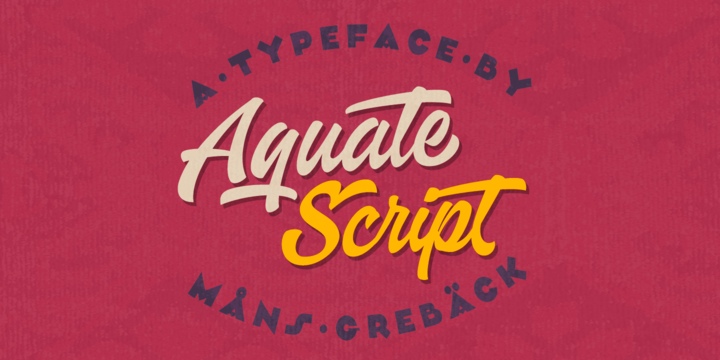
Aquate Script Font
Aquate Script Font is perfect for wedding invitations, luxury brand logos, elegant stationery designs, high-end packaging projects, spa and wellness branding, fashion boutique signage, calligraphy workshops, sophisticated greeting cards, premium cosmetic labels, and refined editorial layouts.
What makes Aquate Script Font so exciting is its exceptional ability to flow like liquid poetry across any design surface with unmatched grace and sophistication. This breathtaking script typeface captures the fluid beauty of masterful calligraphy with letterforms that seem to dance and glide with natural elegance. The font's organic curves and seamless connections perfectly embody the essence of handcrafted artistry and timeless refinement, making it an indispensable choice for brands and projects that demand the highest levels of visual sophistication and personal touch.
Aquate Script Font comes in multiple font families including Regular, Bold, Light, Italic, Condensed, Extended, Flourished, and Swash variations. Each family member maintains the core calligraphic characteristics while offering different flow intensities and decorative approaches to suit various elegant design requirements.
The Aquate Script Font Free Download offers designers an extraordinary opportunity to incorporate authentic hand-lettered beauty into their projects. This remarkable typeface distinguishes itself through its unique ability to communicate themes of luxury, personalization, and artistic craftsmanship. Whether you're creating bespoke wedding materials, developing premium brand identities, or designing exclusive product packaging, this font delivers the sophisticated script aesthetic that discerning clients expect.
The meticulous attention to letterform connections in Aquate Script Font makes it particularly suitable for projects requiring authentic calligraphic appeal. Its flowing design maintains excellent readability while preserving the artistic integrity that makes hand-lettered scripts so desirable for luxury applications and personal celebrations.
Professional designers working in luxury markets appreciate how Aquate Script Font elevates ordinary text into extraordinary artistic statements. The typeface's comprehensive character set includes elegant swashes, contextual alternates, and decorative ligatures that enhance the overall handcrafted atmosphere of any design project.
For creative professionals serving high-end clients and luxury brands, Aquate Script Font provides the perfect foundation for establishing sophisticated visual identities that resonate with audiences who appreciate the timeless beauty of masterful calligraphy and artisanal craftsmanship.